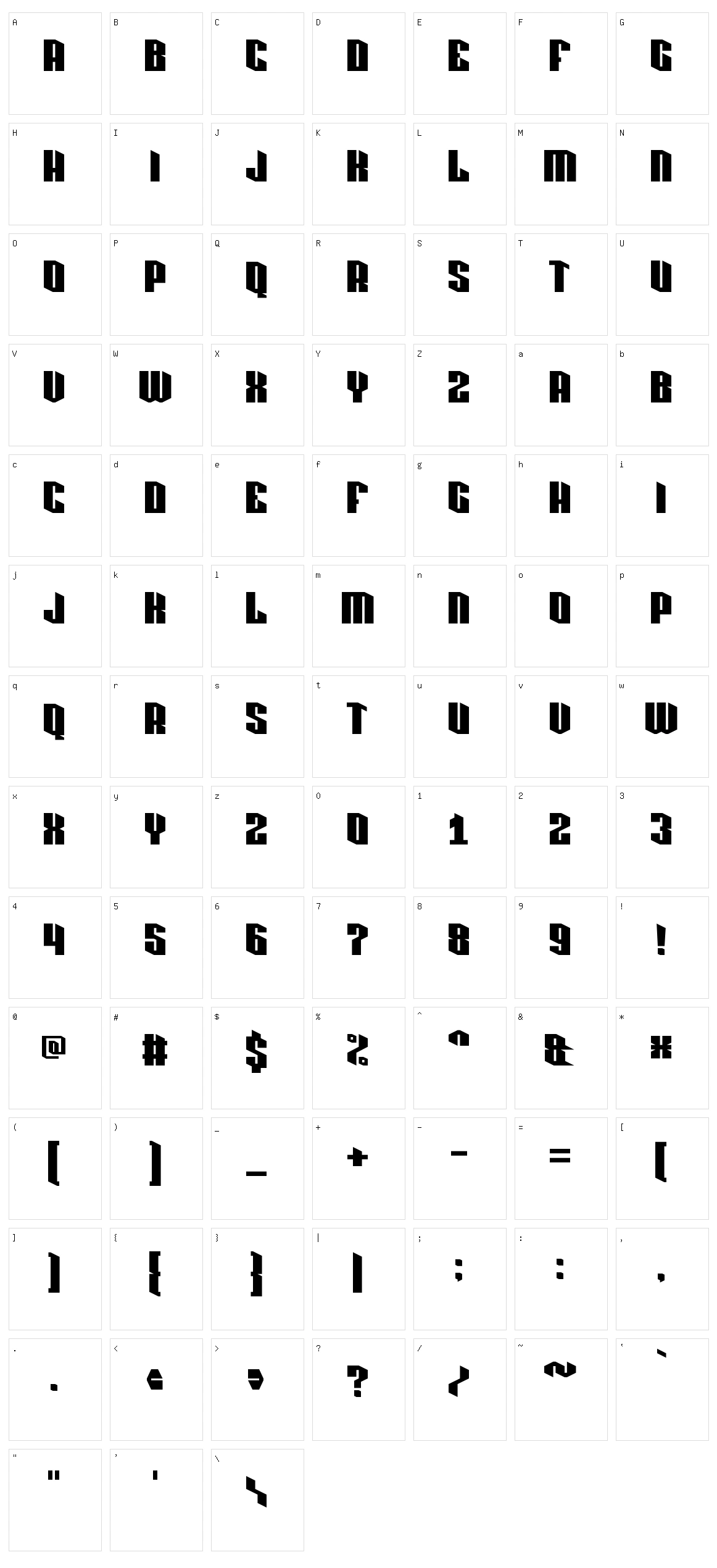
Pixlashed
Designed by: Vít Čondák
Pixlashed
by Vít Èondák
It started as a pixel font with a twist (a missing upper-right corner) but it became a bit more complicated.
Zaèalo to jako bìžný pixel font s jedním skoseným rohem a trochu se to zkomplikovalo. =)
+ AEIOU+caron LJ NJ HT+bar AO+dot GKLNST+commabelow
+ daggers lira franc ordmas ordfem no
+ ligatures: TT tt 1/2 1/4 3/4
+ kerning: LT LY TJ (24 pairs total)
+ * 1234-sup mu paragraph multiply pound yen guillemots
+ breve+... Oslash Lslash
+ 0-9 #$@&-=+_ {|}/\ (c) (R) TM AE OE
+ caron+... circumflex+... ogonek+... cedilla+...
+ ()[] quotes '",.:;?!
+ acute+... grave+... dot+... dieresis+... ring+...
+ basic character set A-Z